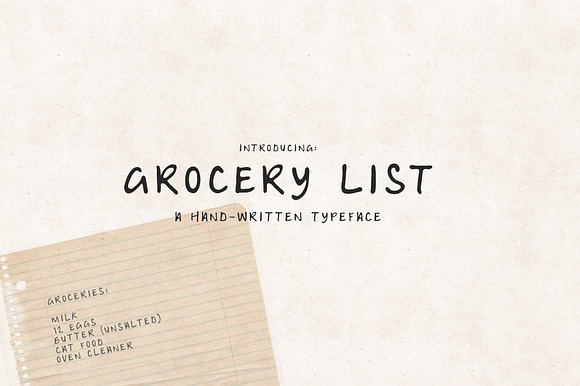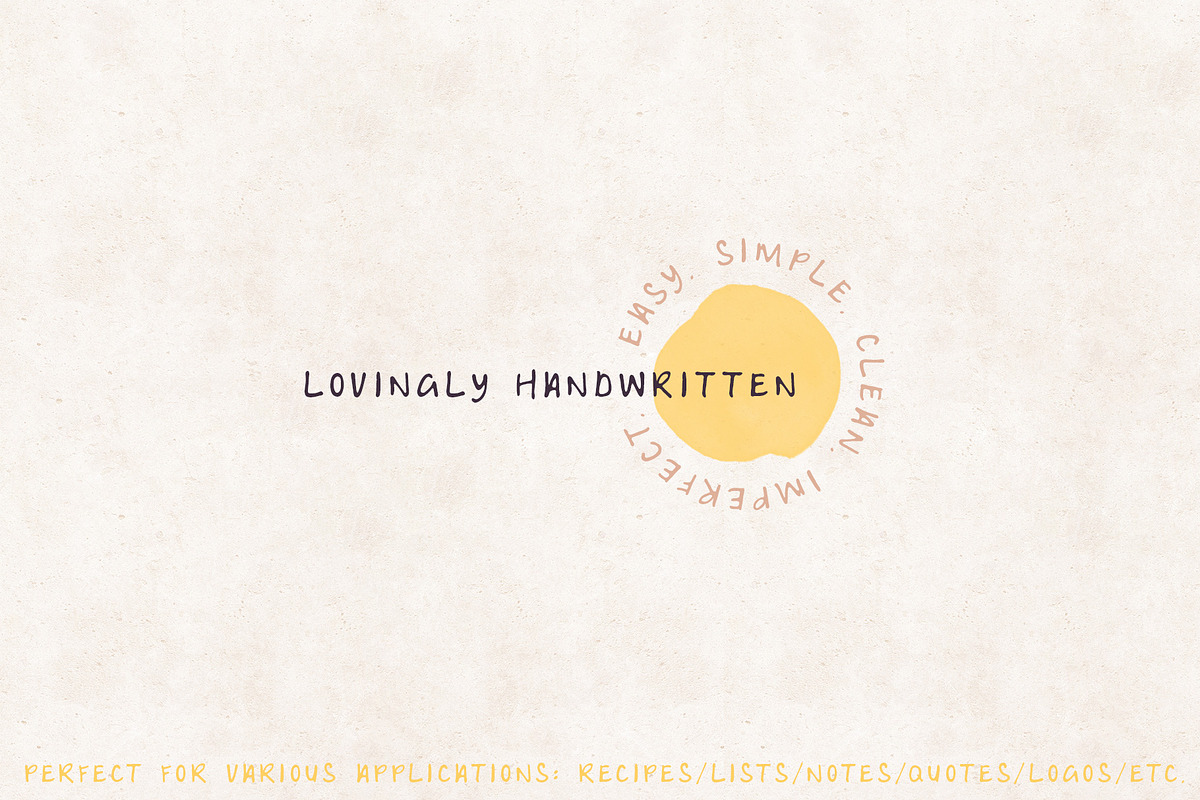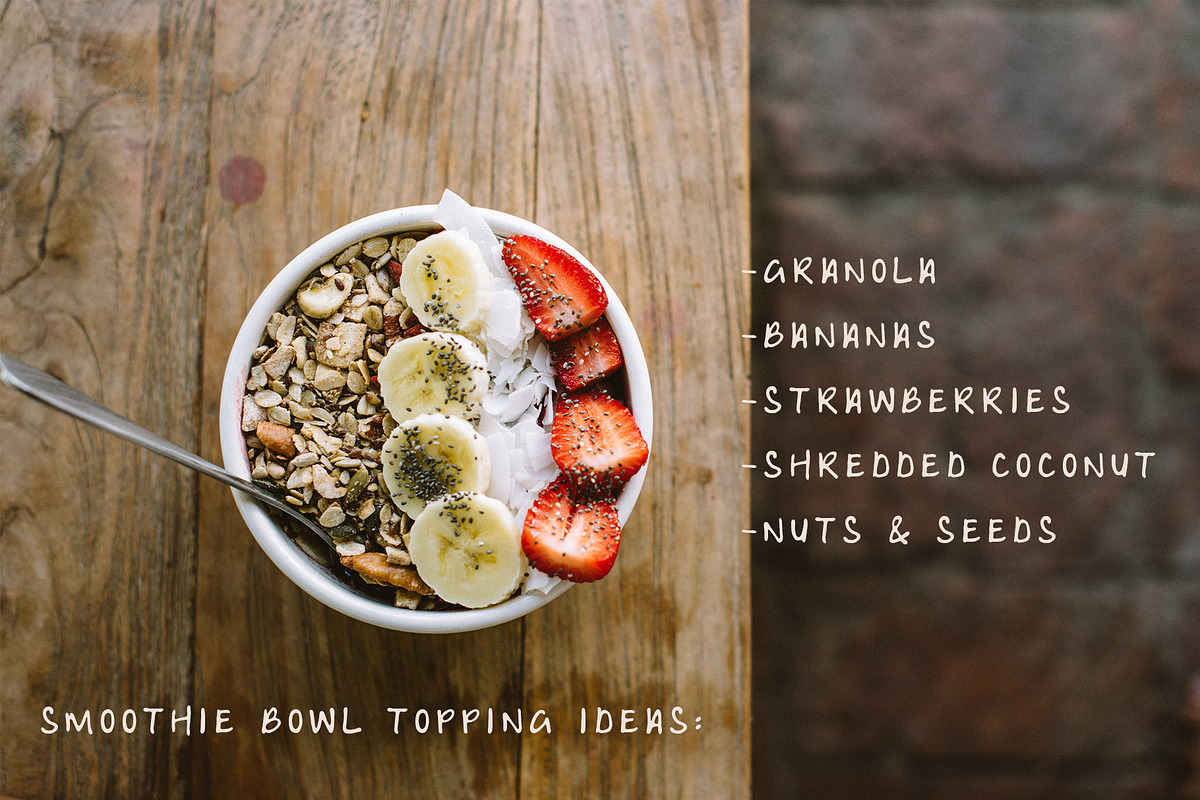
Grocery List: A Handwritten Font
A neat and simple, OpenType font, perfect for adding a personal touch to your projects.
Grocery List: A Handwritten Font by Slab Serif Studio fits naturally into Branding, posters, packaging, typography.